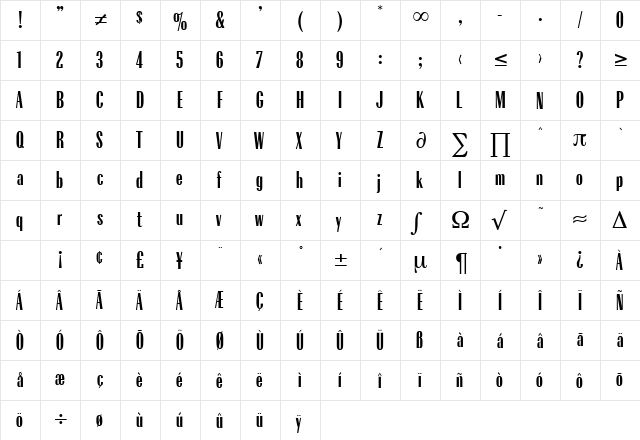
Radius DB Regular
Design Context for Radius DB Typeface
Radius DB is a composed and adaptable typeface that performs quietly and consistently across a wide range of design contexts.